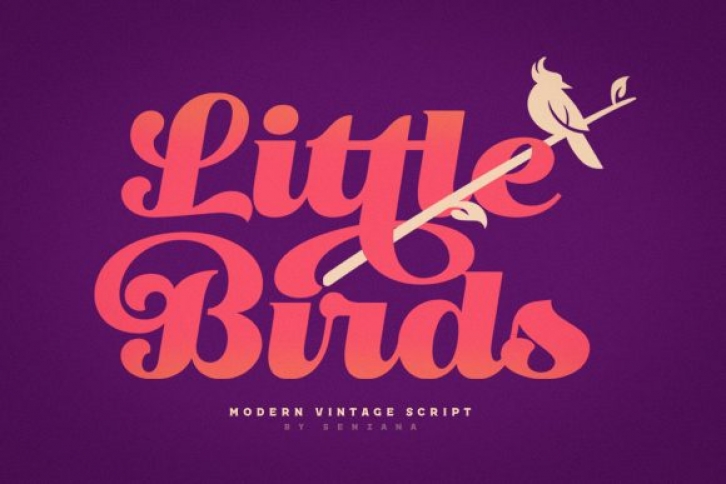
Little Birds is a cool, trendy and bold display font. It is defined by smooth curves and is perfect for fashion branding or editorial designs. Add it confidently to your projects, and you will love the results.